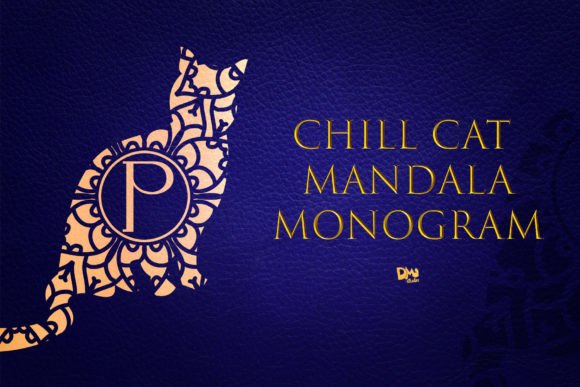
Introducing Chill Cat Mandala Monogram Font, the purrfect decorative typeface that will unleash your creativity with a touch of feline charm. Step into a world of whimsical wonder where every letter dances with the grace of a cat and every word flows with the harmony of a purr. This font is not just a collection of characters; it's a celebration of the feline spirit, crafted with love for all cat enthusiasts.
Chill Cat Mandala Monogram is more than just a font; it's a journey into the heart of cattitude. With its intricate patterns resembling mandalas, this font transforms ordinary words into captivating works of art. Each letter is a masterpiece of curves and swirls, inviting you to explore the depths of your imagination. Let your creativity soar as you weave enchanting tales, design personalized gifts, or create stunning logos that purr with personality.
Whether you're a seasoned designer or a creative beginner, Chill Cat Mandala Monogram will captivate your heart and inspire your soul. Its versatility shines through in its ability to adapt to any project, from whimsical invitations to eye-catching posters. Its decorative flair adds a touch of elegance and sophistication, making it the perfect choice for those seeking a font that speaks to their unique style.
With Chill Cat Mandala Monogram, you'll join a community of cat-loving creatives who appreciate the beauty and joy that felines bring to our lives. Unleash your inner cat lover and let your imagination run wild as you create projects that reflect your passion for these enchanting creatures. Transform your designs into works of art, infused with the playful spirit and timeless elegance of Chill Cat Mandala Monogram.